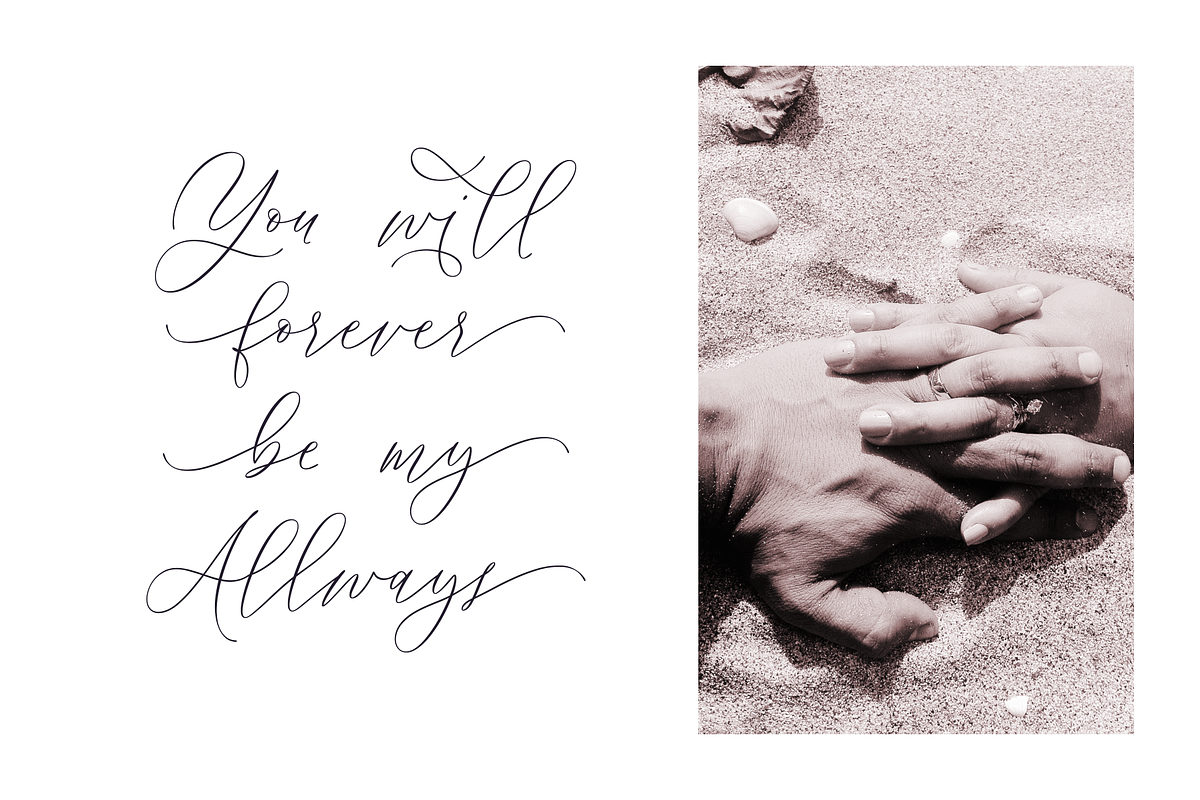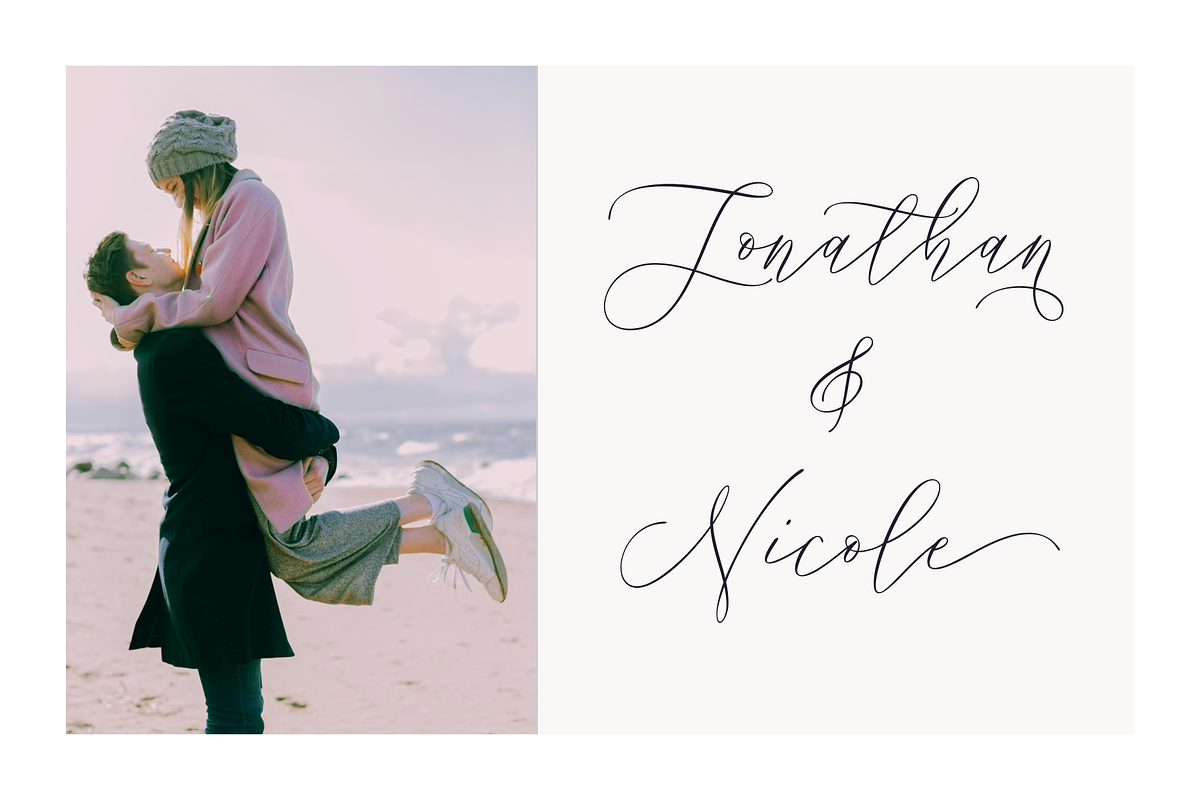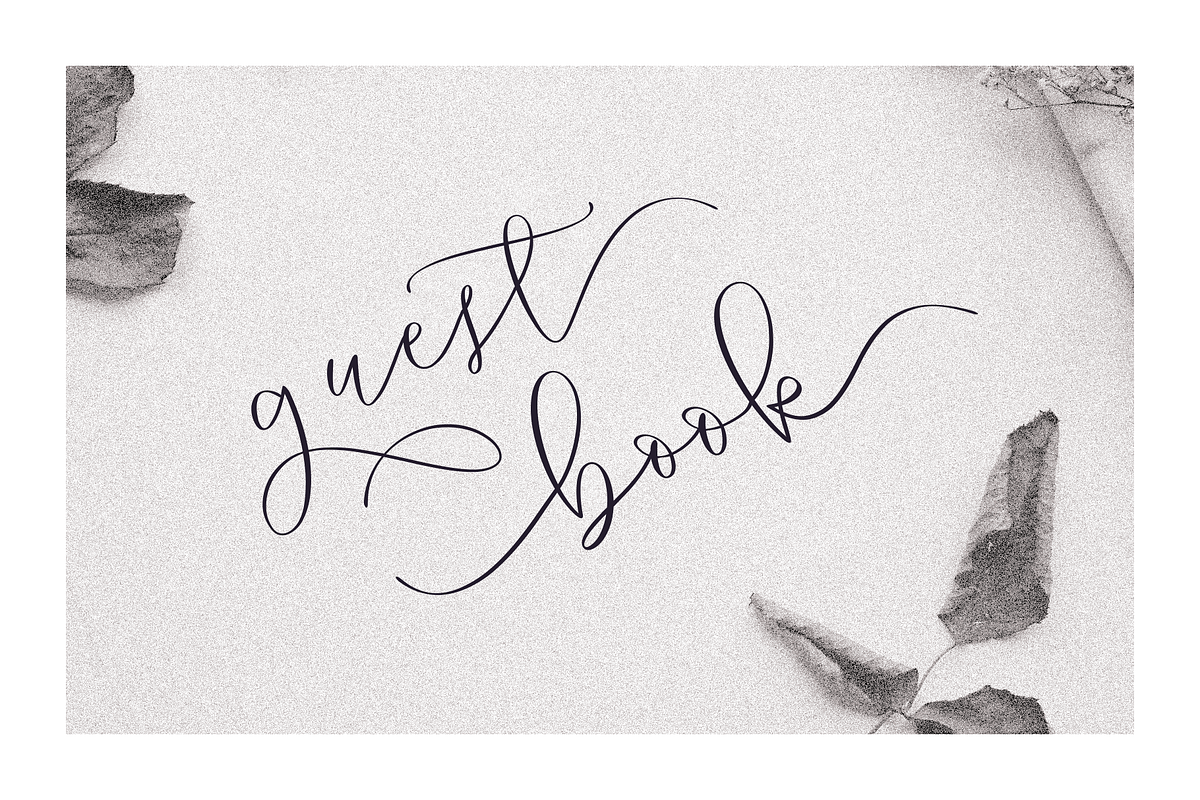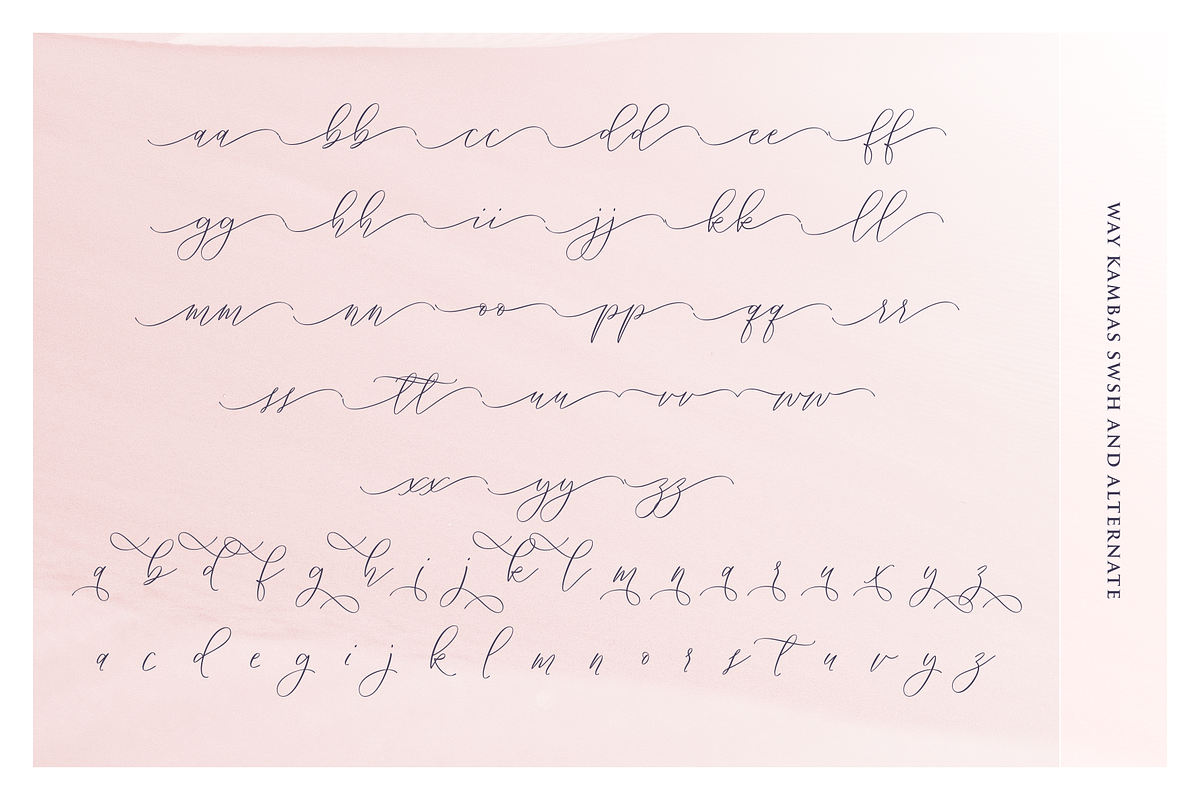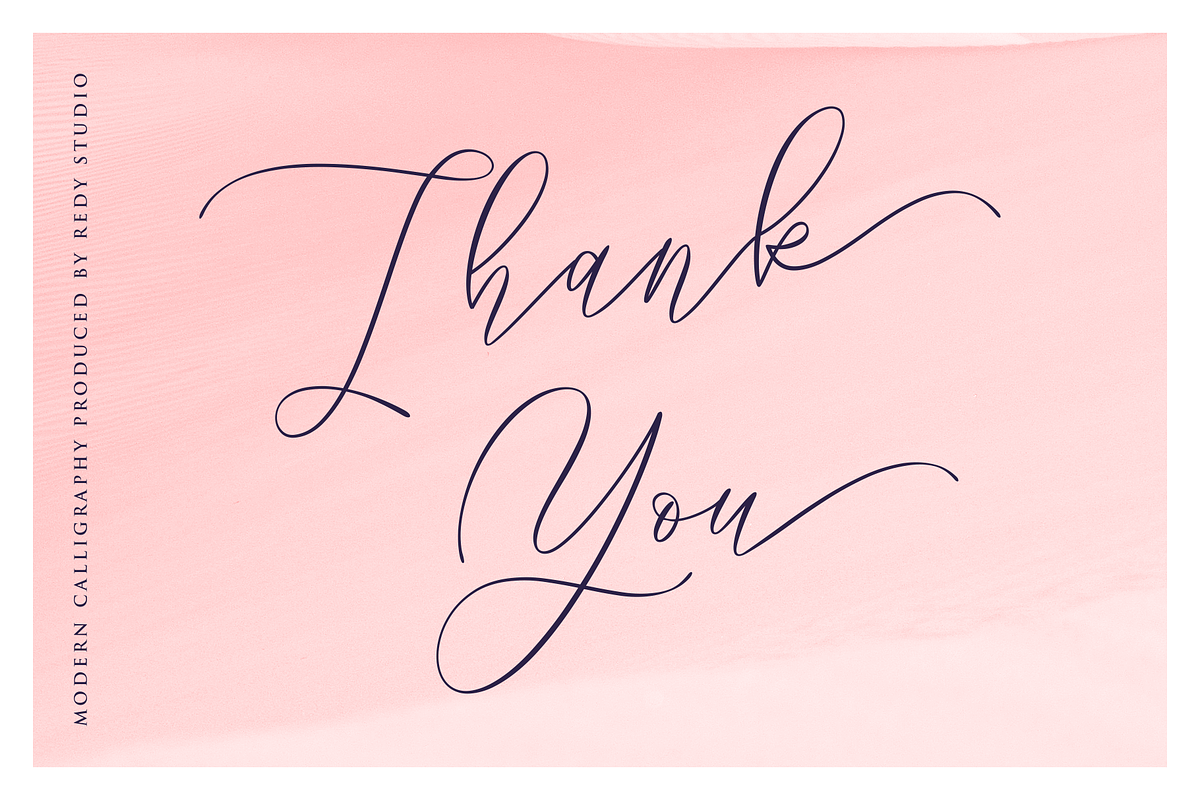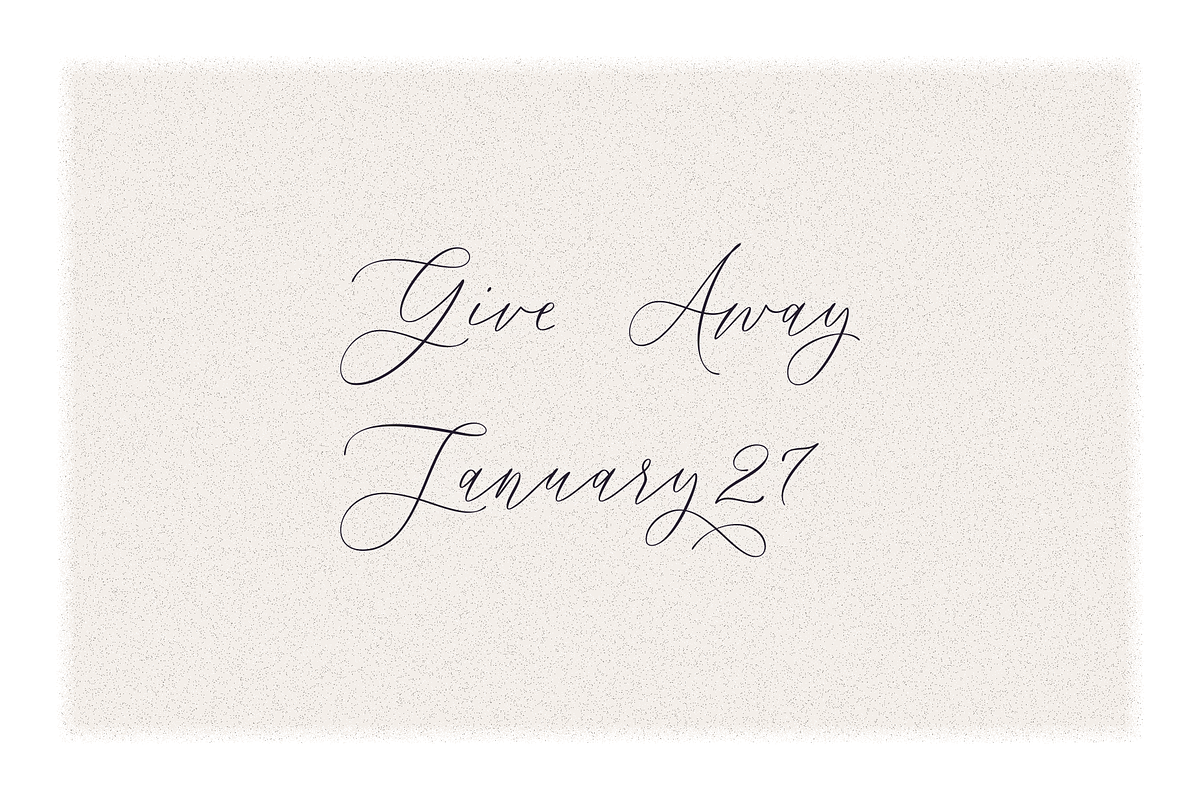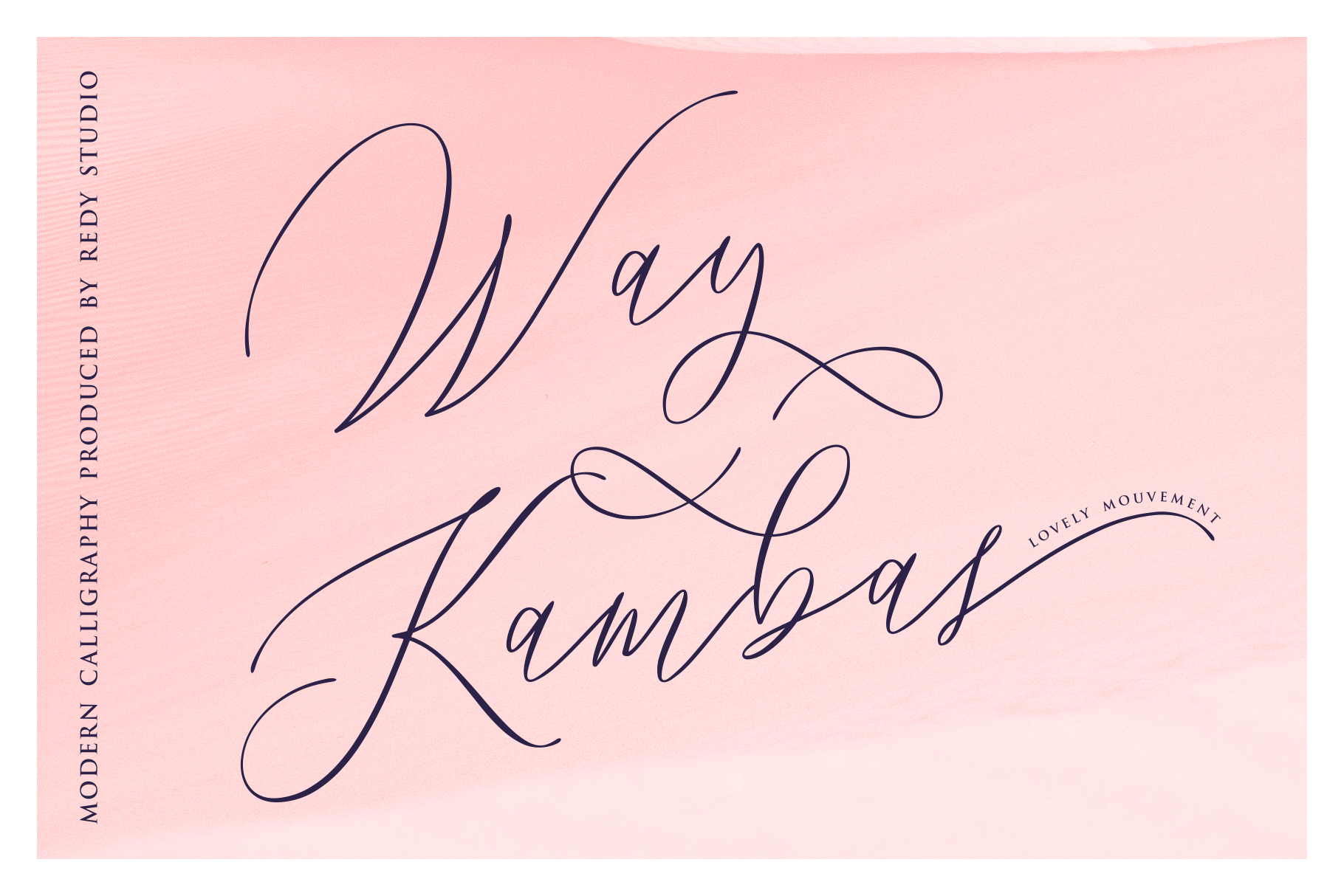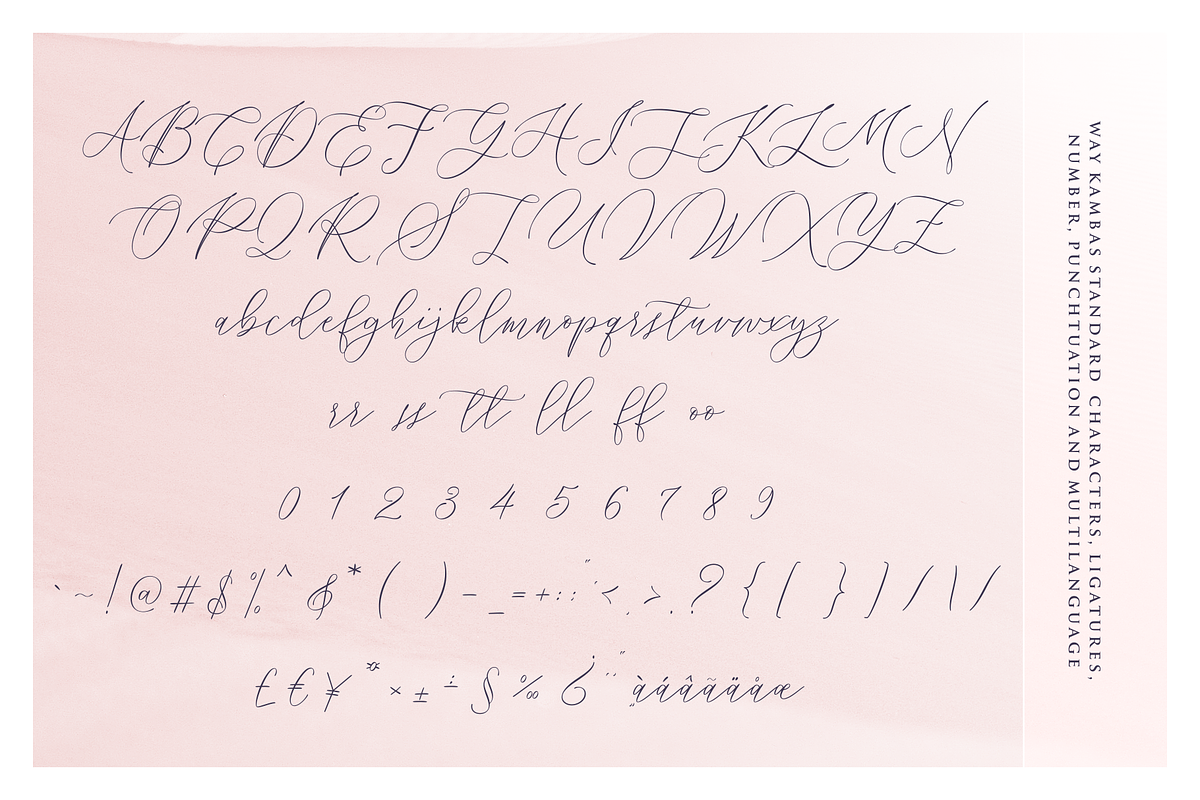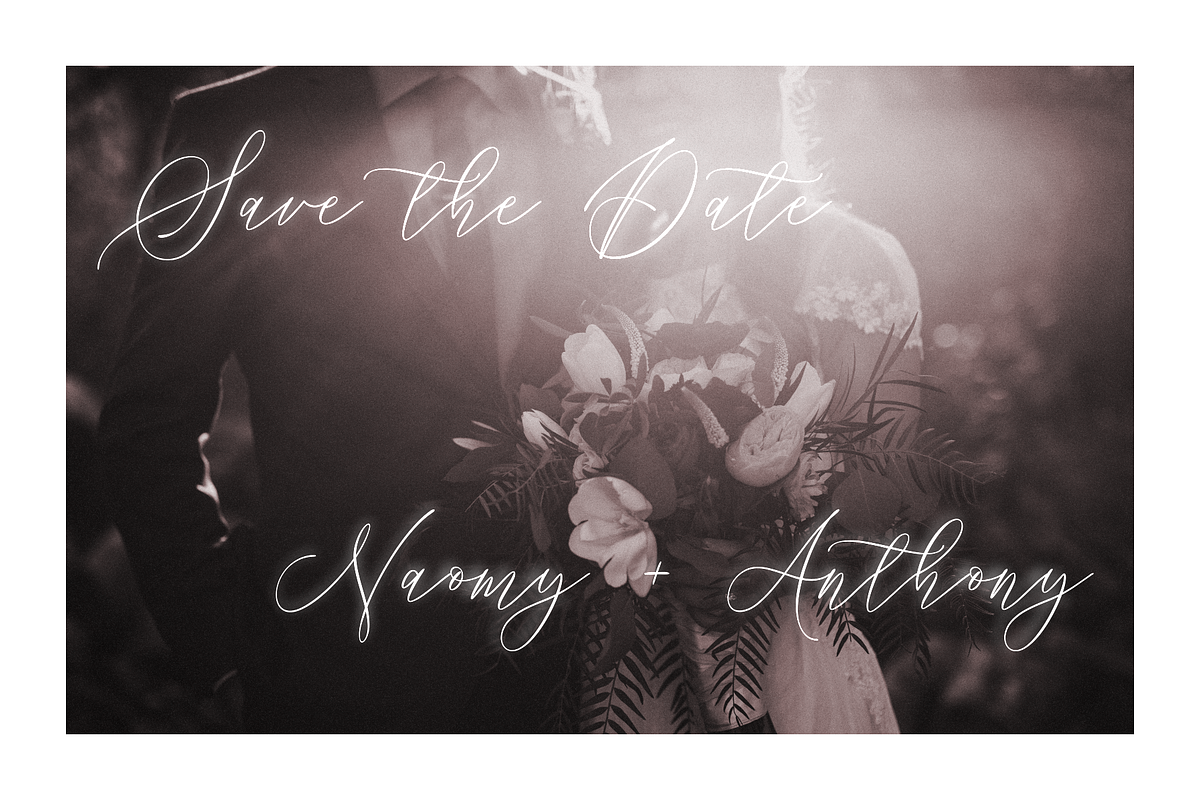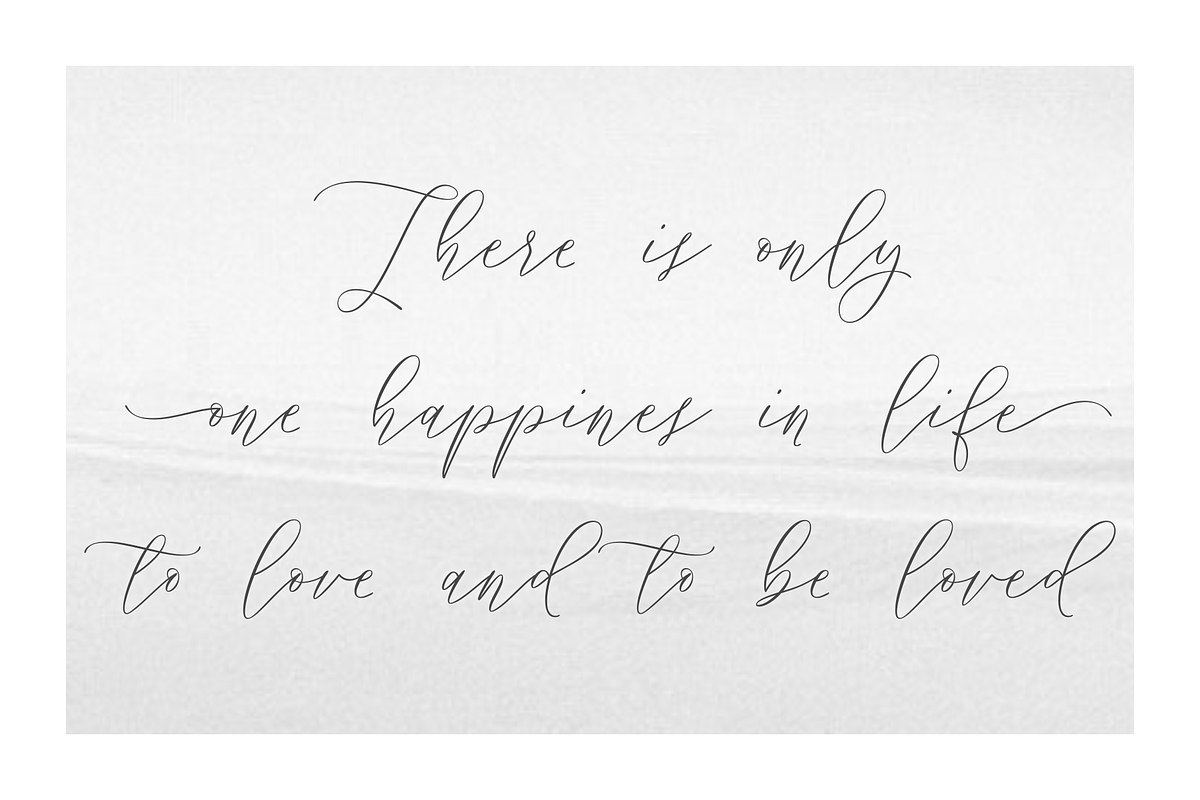
Way Kambas – Modern Calligraphy Font
Hello, I’m Way Kambas. I’m a modern calligraphy font with thin strokes and beautiful movements. Way Kambas is natural, stylish, and a perfect combination of traditional calligraphy and modern design. Combining thin strokes with beautiful movement, this font is built to bring any design project to life. You can use me for every design project as well (especially for wedding invitations, quote, greeting cards, and any romantic/love project).
Way Kambas features:
- A full set of upper & lowercase characters
- Lowercase beginning swashes
- Lowercase ending swashes
- Some lowercase alternates